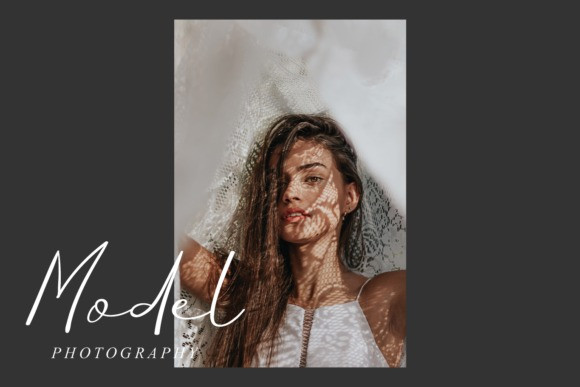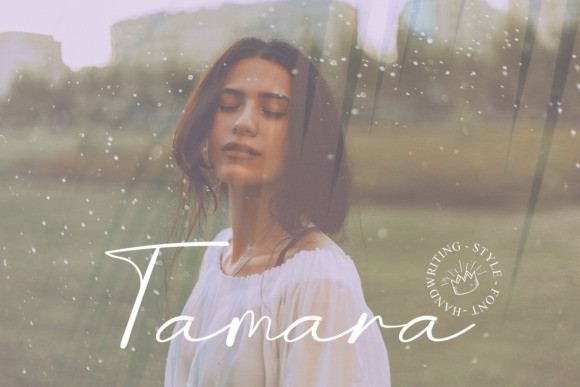
Tamara Font
Tamara Handwritten Font is a fashionable script font. It is neatly crafted and highly detailed. Whatever the topic, Tamara will be a wonderful asset to your font library, as it has the potential to enhance any creation.